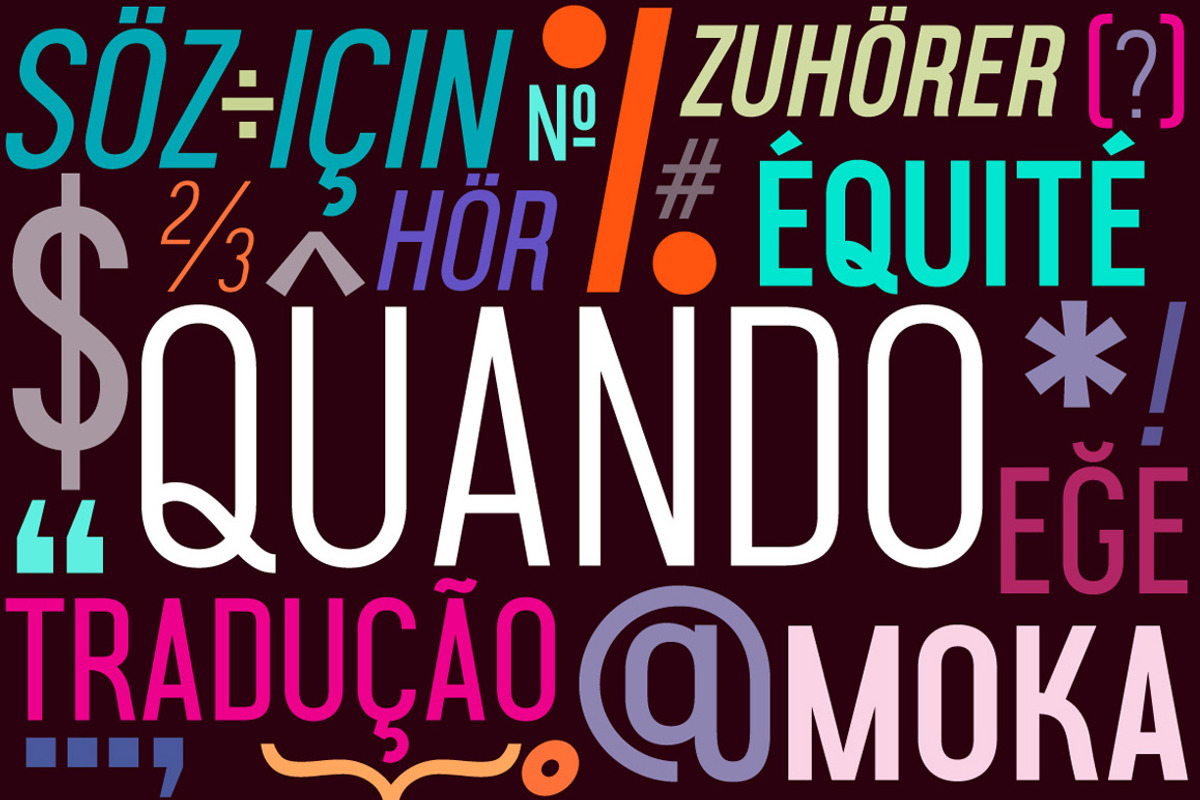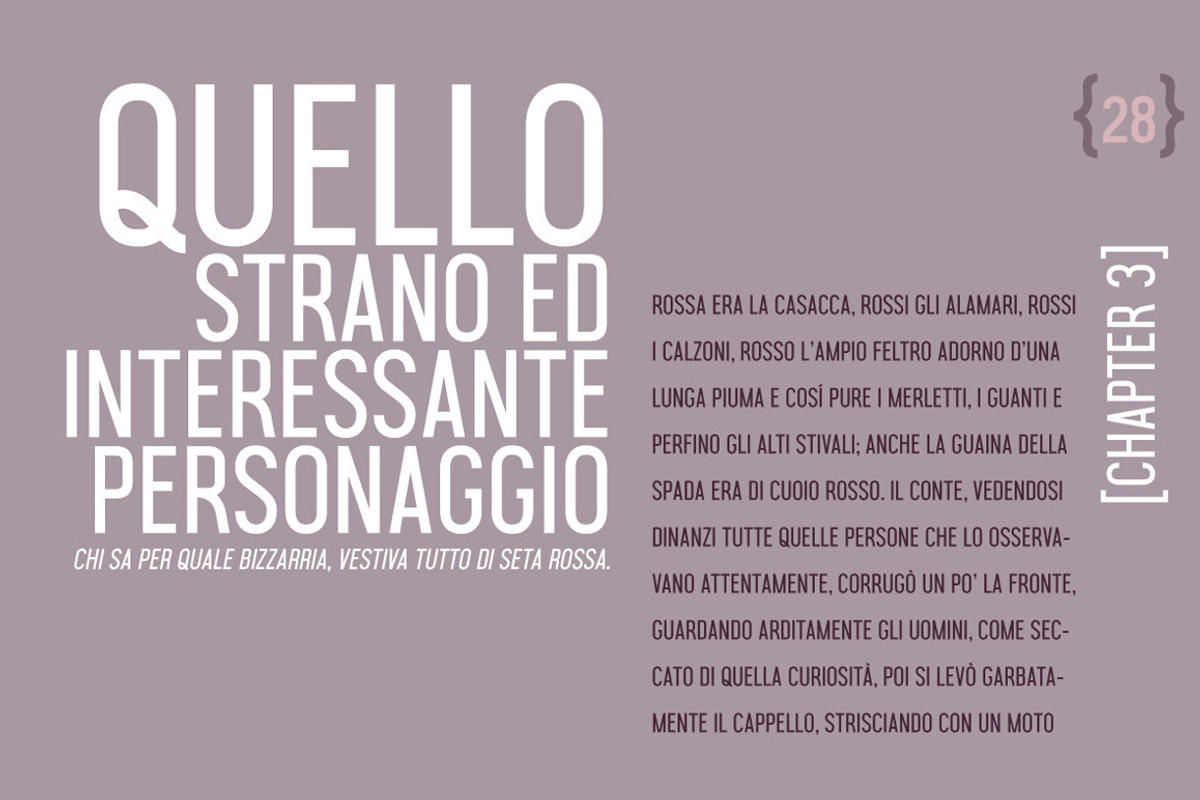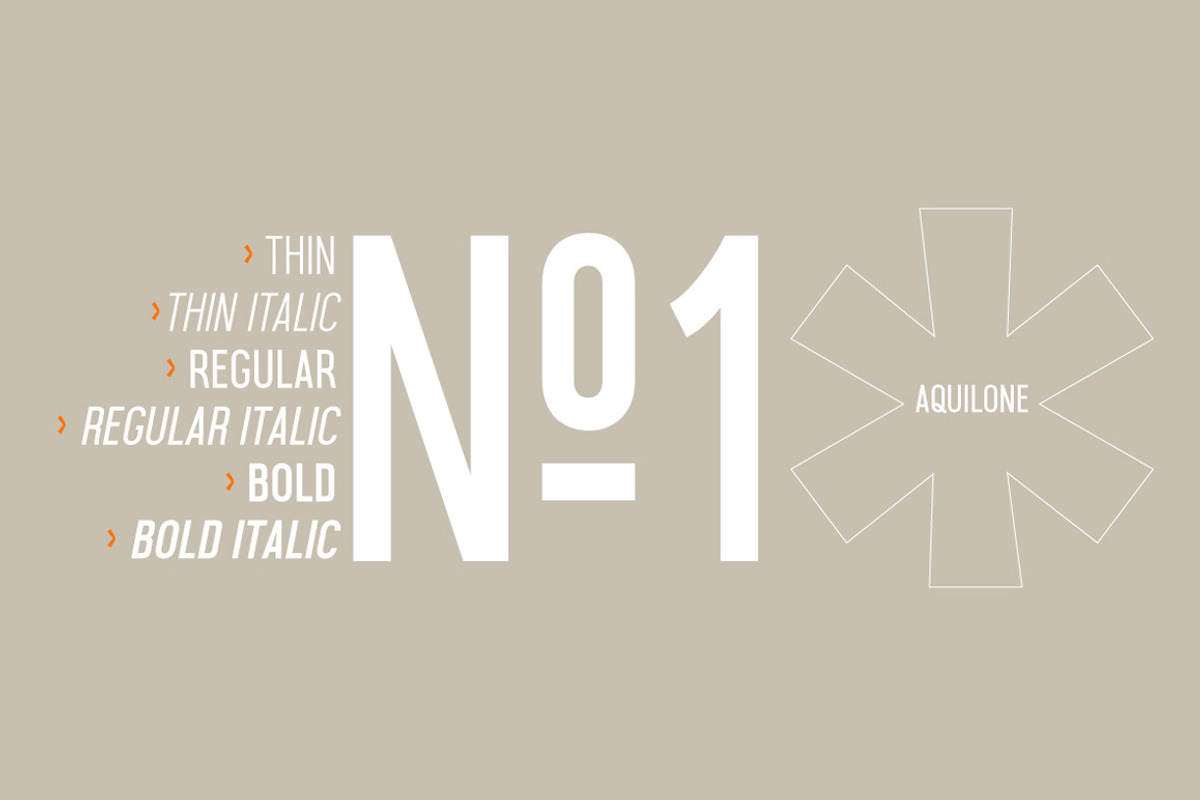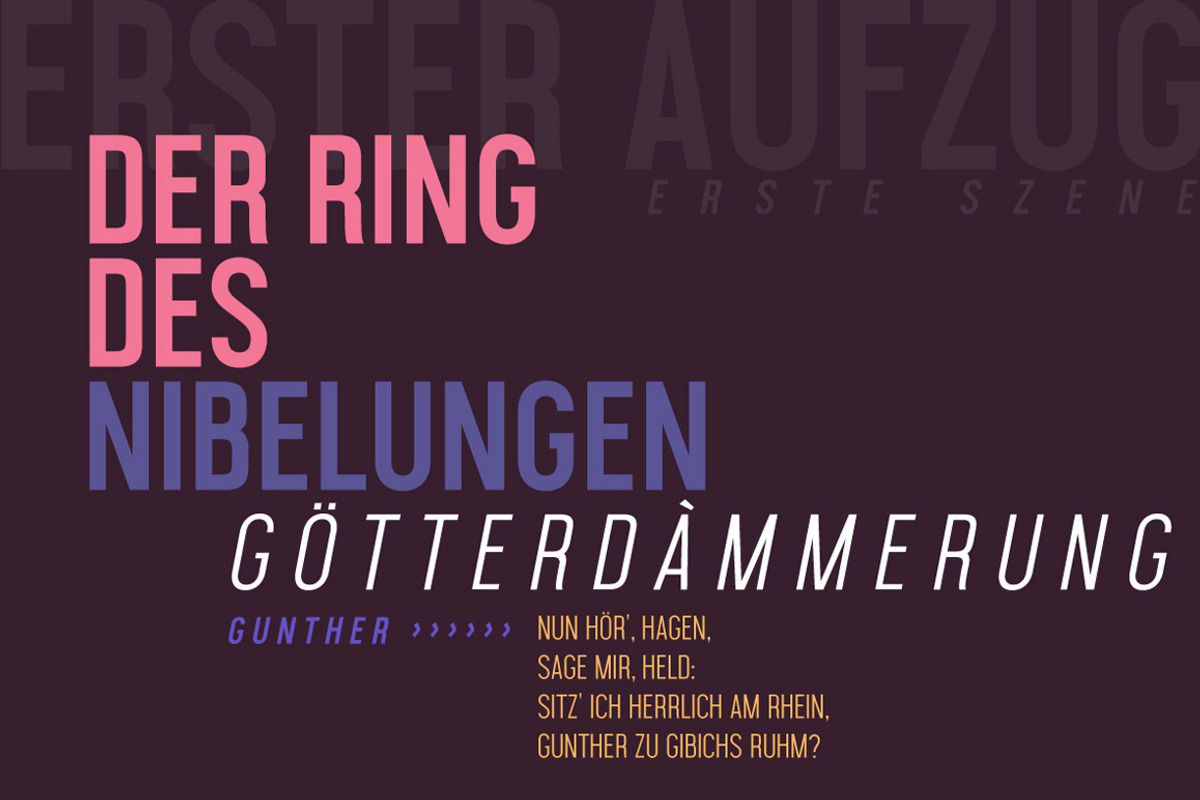
AQUILONE font
AQUILONE font by Magdalena Boffito is a font selected for branding, posters, packaging, typography.
- It includes stylistic alternates and multiple language support.
Why AQUILONE font is worth a look
AQUILONE font by Magdalena Boffito fits naturally into Branding, posters, packaging, typography.